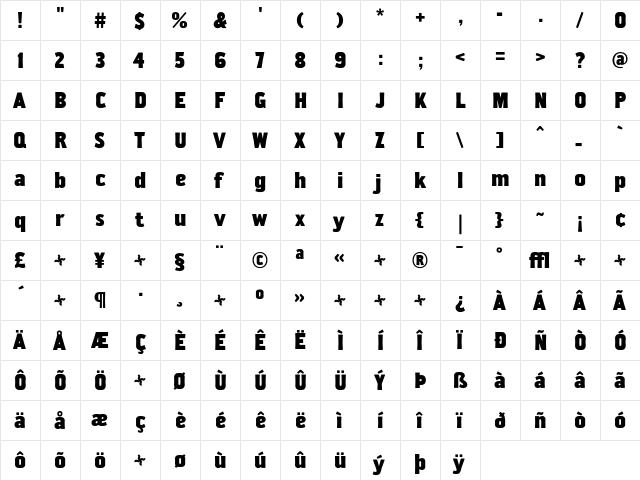
Hamilton Bold
Design Context for Hamilton Typeface
Hamilton takes a measured approach to typography — its balanced proportions and neutral character make it a reliable workhorse for both digital and print work. The heavy weight commands attention and anchors typographic hierarchies.